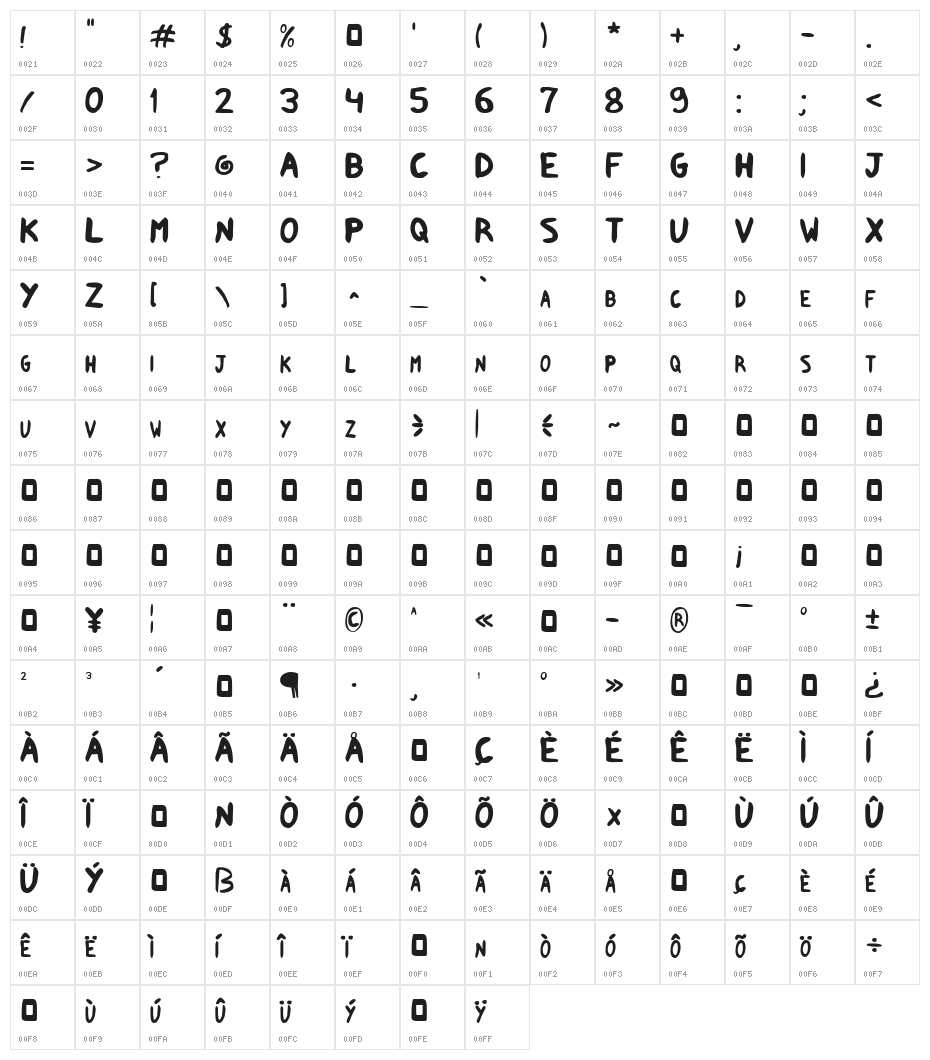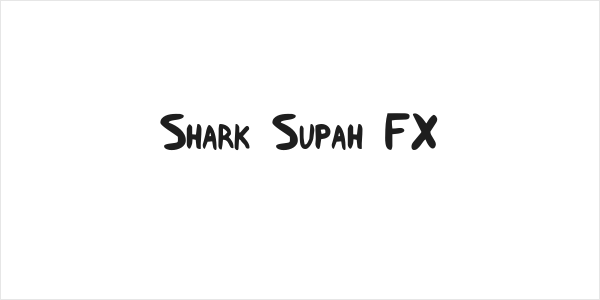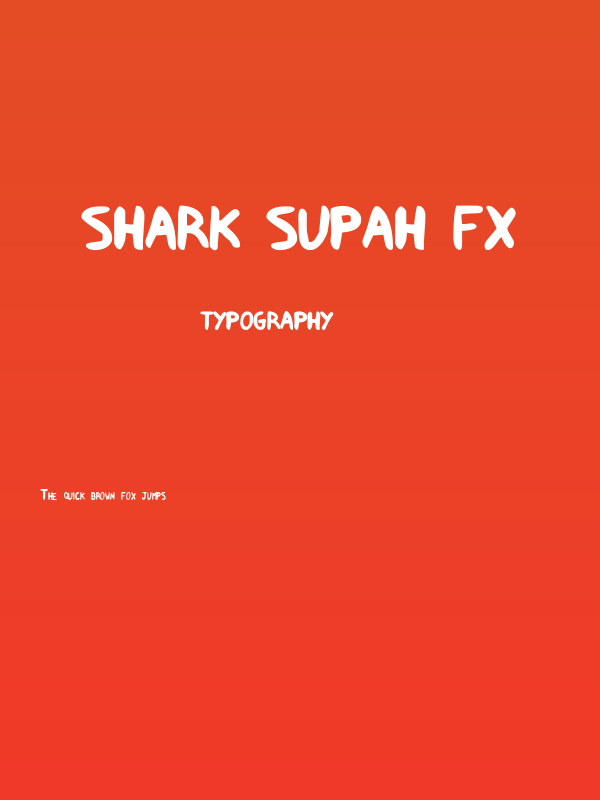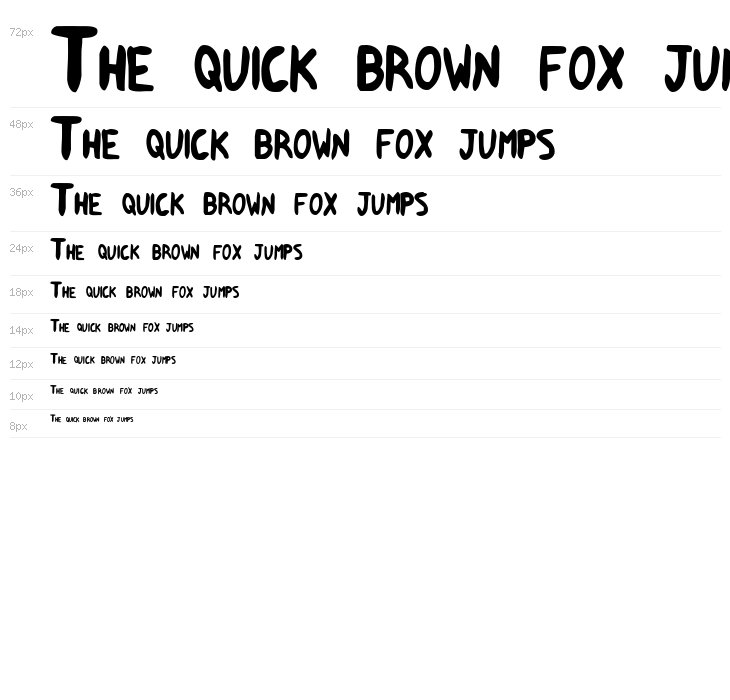
Shark Supah FX Font
Shark Supah FX Description
This font features a bold and playful style with rounded edges and a hand-drawn appearance. The characters are thick and slightly irregular, giving it a casual and friendly vibe. The uppercase and lowercase letters maintain a consistent style, with a slight slant that adds to its dynamic look. The numbers are equally bold and maintain the playful aesthetic. Special characters are included, matching the overall style with a whimsical touch. This font is ideal for projects that require a fun and approachable feel.
| Proposed Projects | Perfect for children's books, playful branding, casual invitations, and creative posters. |